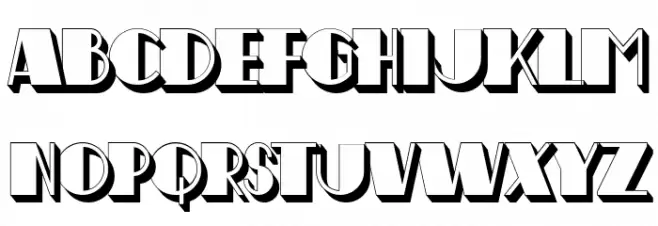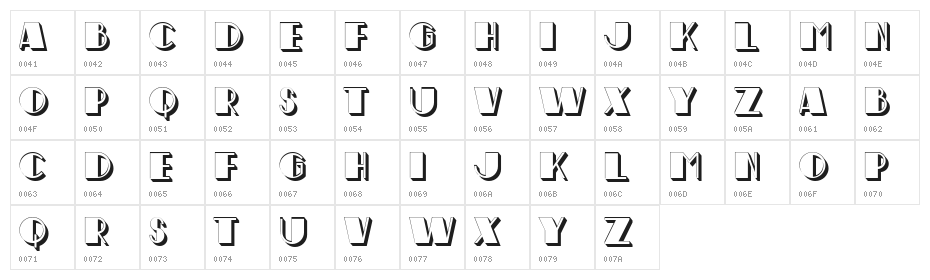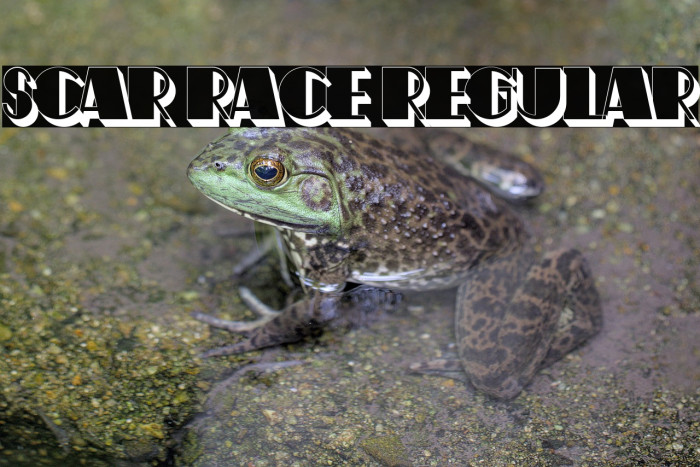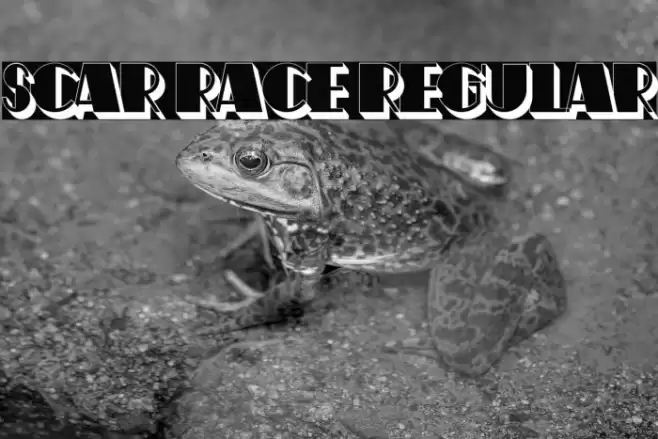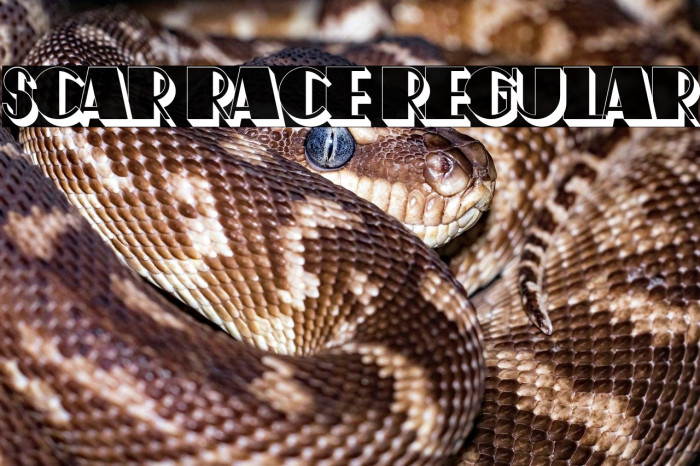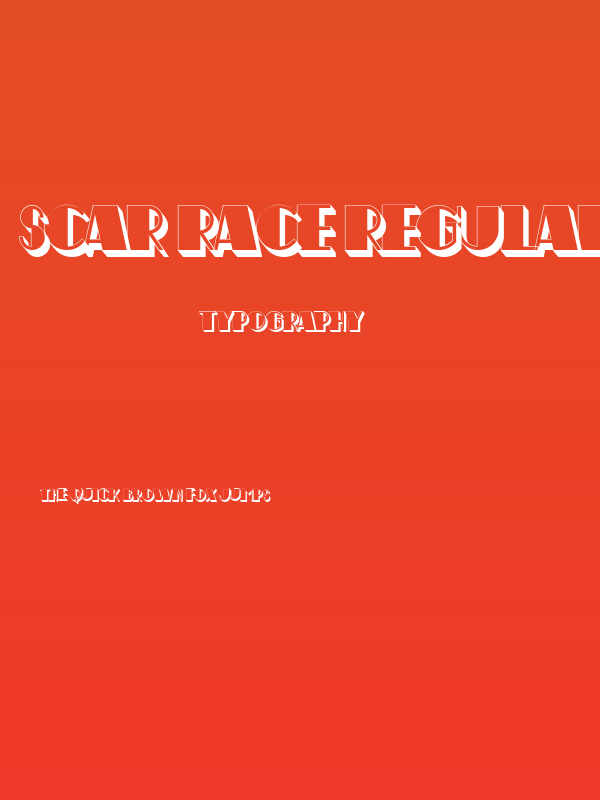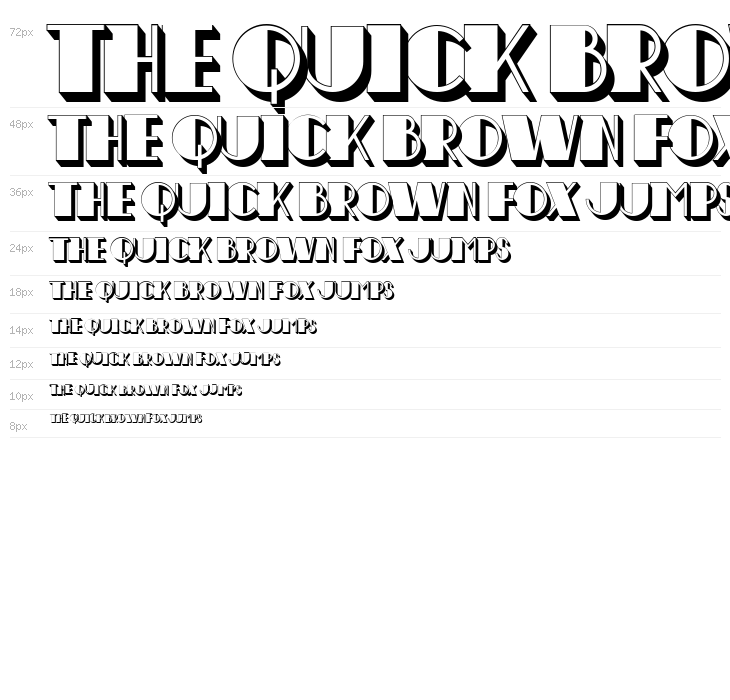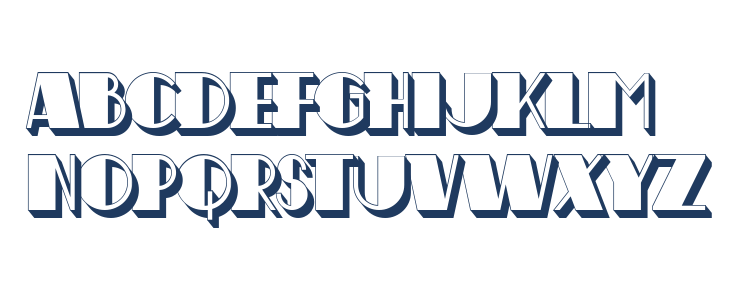
Scar Race Regular Font
Scar Race Regular Description
This font features a bold, three-dimensional design with a shadow effect that gives it a striking and dynamic appearance. The characters are uppercase only, with a geometric and angular style that adds a modern and edgy feel. The shadow effect creates a sense of depth, making the letters stand out prominently. The font's design is clean and precise, with sharp edges and consistent line thickness, contributing to its bold and impactful look. It's ideal for projects that require a strong visual presence and can effectively capture attention.
| Proposed Projects | Ideal for posters, headlines, logos, and any design requiring a strong visual impact. |